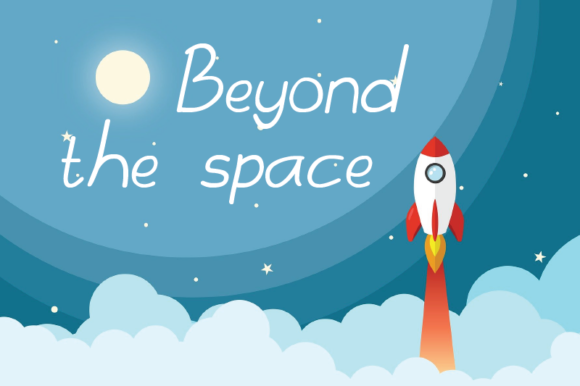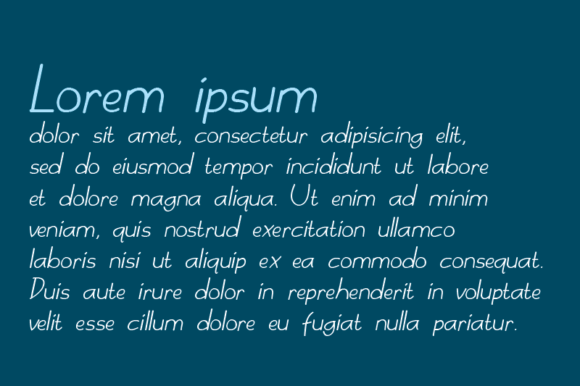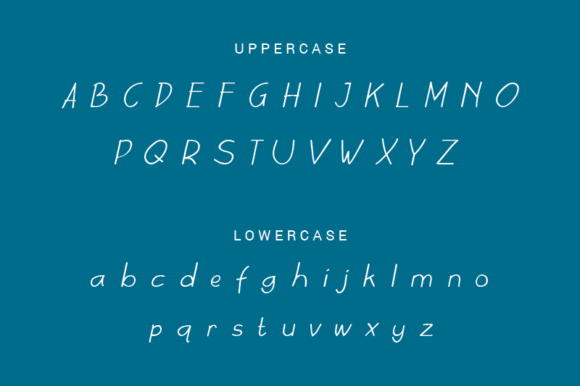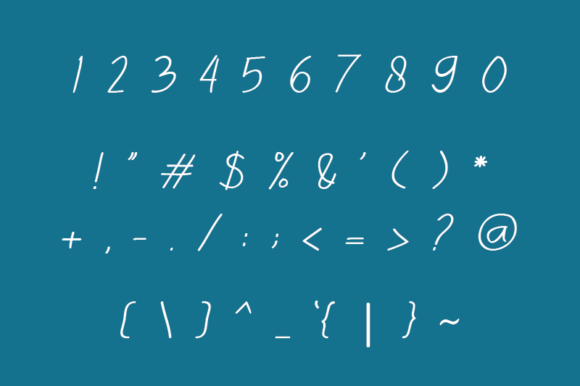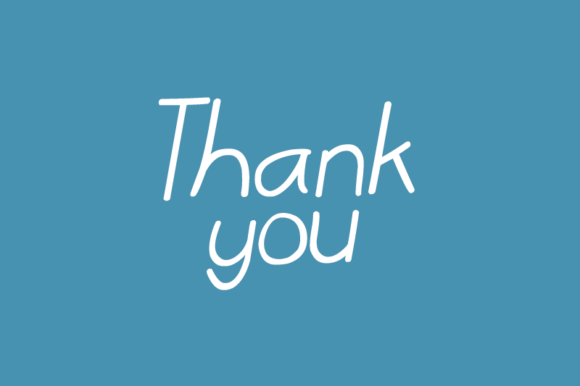
Introduction to Mlalaty Font
Have you ever sat in front of a blank page, staring at your computer screen, waiting for inspiration to strike? For designers, this is a familiar feeling. But what if we told you that the perfect spark could be just a click away? Enter the Mlalaty Font, a stunning handwritten font that’s about to revolutionize your creative projects.
This high-quality font is a masterclass in elegance, blending classic calligraphic influences with a modern, fresh twist. With its transparent background, it’s the perfect design resource for any project, from branding and advertising to editorial and creative writing.
Key Features of Mlalaty Font
- High-quality design: Mlalaty Font is a well-crafted font suitable for various creative projects, offering a unique and elegant touch.
- Transparent background: This font features a transparent background, making it easy to use over different backgrounds and designs.
- Medium font size: Mlalaty Font is designed to be used at medium font sizes, ranging from 12 to 48 points, for optimal readability and visual impact.
- High resolution: The font is designed at high resolution (300 DPI), making it suitable for use in print materials, such as business cards, brochures, and posters.
- Perfect for creative projects: Mlalaty Font is an excellent choice for designers and artists working on creative projects, including branding, advertising, and editorial design.
Honest Review: Mlalaty Font
As a designer, I’m always on the lookout for high-quality fonts that can elevate my creative projects. Recently, I stumbled upon the Mlalaty Font, and I must say, it’s been a great addition to my design resource arsenal.
What works well: ✨ The Mlalaty Font boasts a unique, modern design that’s perfect for contemporary projects. Its clean lines, sans-serif style, and transparent background make it a versatile choice for a wide range of applications. The font is also available for free download, which is a major plus in my book.
Limitations: ⚠️ While the Mlalaty Font is a solid choice, I do find that it may not be the best option for projects that require a lot of emphasis on texture or bold typography. Additionally, the font’s sans-serif style may not be suitable for all design contexts.
Overall, I’m impressed with the Mlalaty Font’s high quality and design flexibility. It’s definitely a valuable resource for any designer looking to add a modern touch to their creative project.
- Unique, modern design
Getting the Most Out of Mlalaty Font
For optimal results, use the Mlalaty Font in combination with other design resources to create a cohesive and visually appealing design. Experiment with different font sizes, colors, and styles to enhance the overall impact of your creative project.
The Mlalaty Font is ideal for use in a variety of creative projects, including logos, brochures, posters, and social media graphics. Its transparent background and high-quality features make it a valuable design resource for designers and non-designers alike.